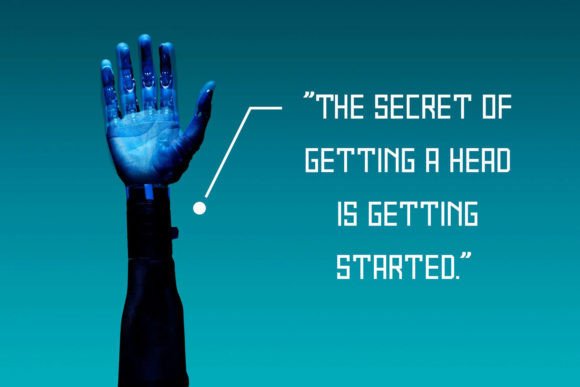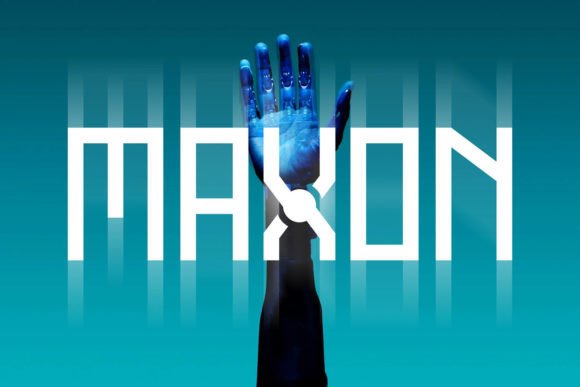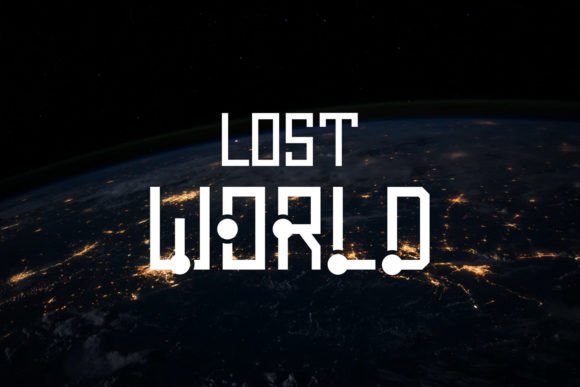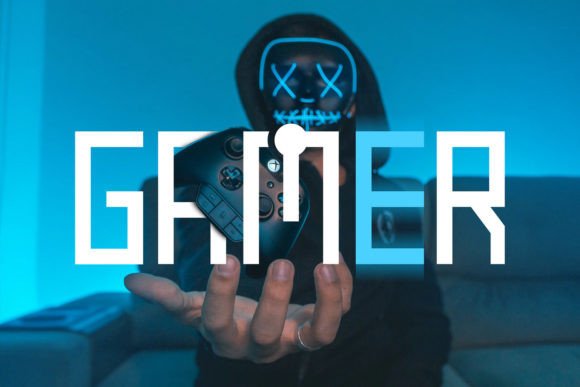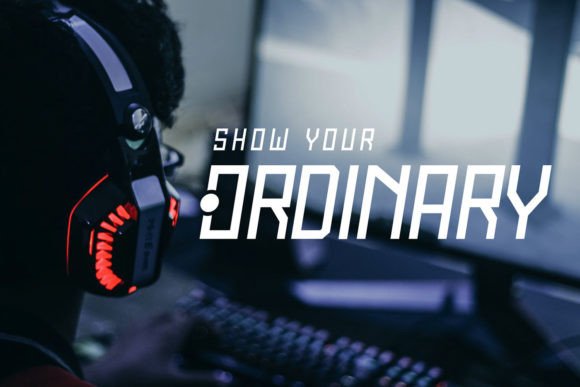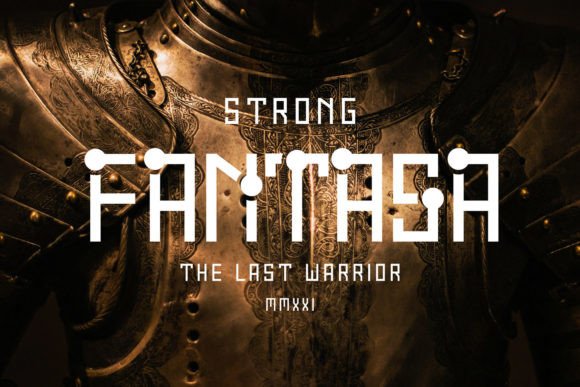
Introduction to Kuvas Font
Have you ever stared at a blank canvas, waiting for the perfect design to emerge? As a designer, that moment of creative spark can be exhilarating, but it can also be daunting. You want to create something unique, something that stands out from the crowd. That’s where the Kuvas Font comes in – a cool and unique display font that’s perfect for giving your creative project that extra oomph!
With its futuristic and stylish characters, the Kuvas Font is a valuable resource for designers looking to add a sci-fi touch to their designs. Whether you’re working on a high-quality logo, a creative poster, or a website with a transparent background, this font is sure to impress. And the best part? It’s available for free download, making it an accessible design resource for designers of all levels.
- High-quality, unique font design perfect for creative projects and design resources.
- Features a clean and modern aesthetic, ideal for use in logos, branding materials, and other visual identity projects.
- High-resolution design (up to 300 DPI) ensures crisp and clear text display in various sizes and resolutions.
- Designed to be highly legible and versatile, making it suitable for use in a variety of creative contexts.
- Perfect for designers, artists, and creatives looking for a unique and high-quality font to enhance their design projects.
Honest Review: Kuvas Font
I recently had the chance to work with Kuvas Font on a creative project, and I must say I’m quite impressed. As a designer, I’m always on the lookout for high-quality design resources that can elevate my work.
One of the things that stands out about Kuvas Font is its versatility. With a transparent background, it’s incredibly easy to customize and use in a variety of contexts. I’ve used it for everything from logos to typography-based designs, and it always looks great.
- High-quality design with a modern aesthetic
- Wide range of applications, from logos to typography-based designs
- ⚠️ Limited font styles and variations (although this may change in the future)
- ⚠️ Not suitable for complex, multi-line text settings
Overall, I’m very happy with my experience using Kuvas Font. While it may not be perfect, it’s a solid addition to any designer’s toolkit. With a little creativity, the possibilities are endless.
The Kuvas Font is ideal for a variety of creative projects, including:
- Graphics and illustrations